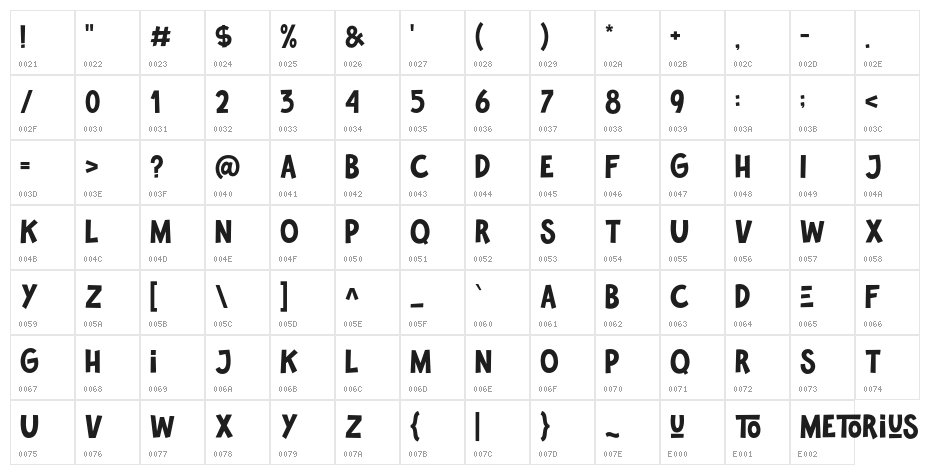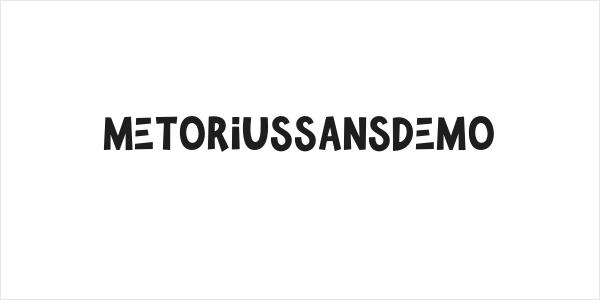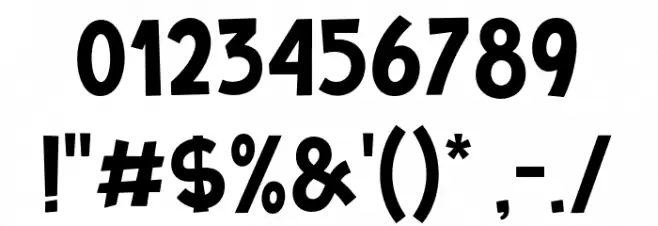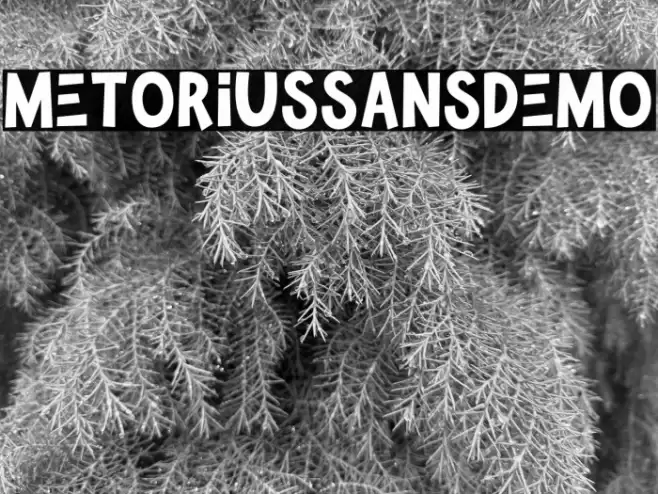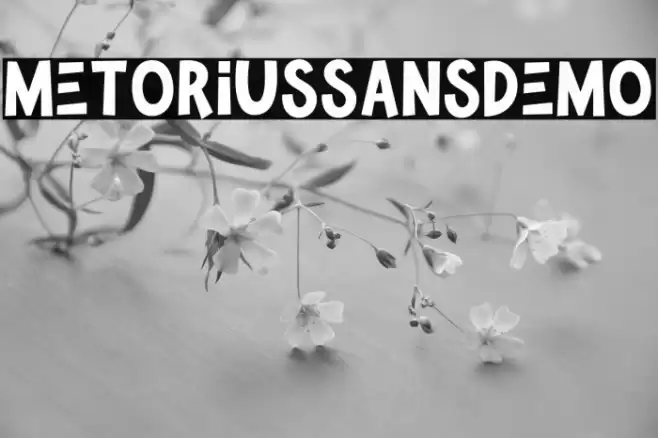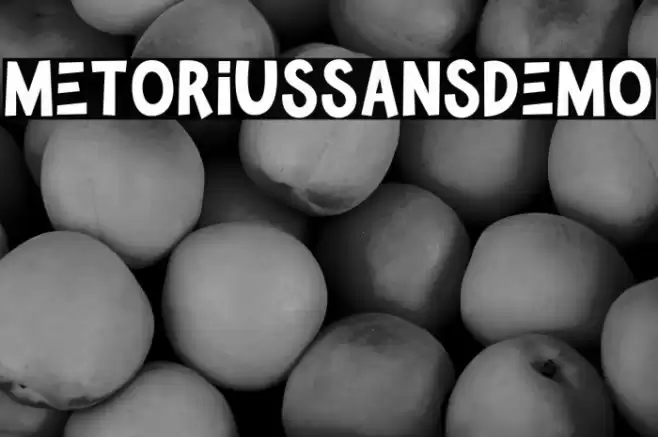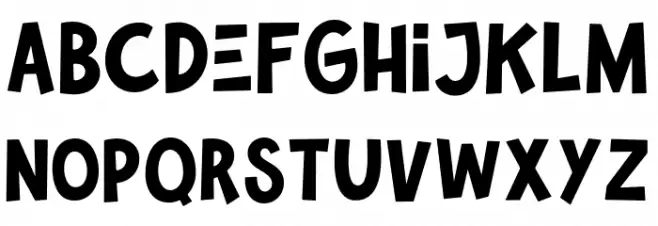
MetoriusSansDemo Font
MetoriusSansDemo Description
This font features a bold and playful design with a strong emphasis on geometric shapes. The characters are slightly tilted, giving them a dynamic and energetic appearance. The uppercase letters are particularly striking, with a consistent weight that adds to the boldness of the font. The lowercase letters maintain the same playful style, ensuring readability while adding a touch of whimsy. The numbers are clear and bold, matching the overall aesthetic. Special characters are well-integrated, maintaining the font's cohesive look. This font is ideal for projects that require a fun and engaging visual impact.
| Overall Style | Playful, Modern |
| Proposed Projects | Perfect for children's books, playful branding, posters, and creative advertising. |